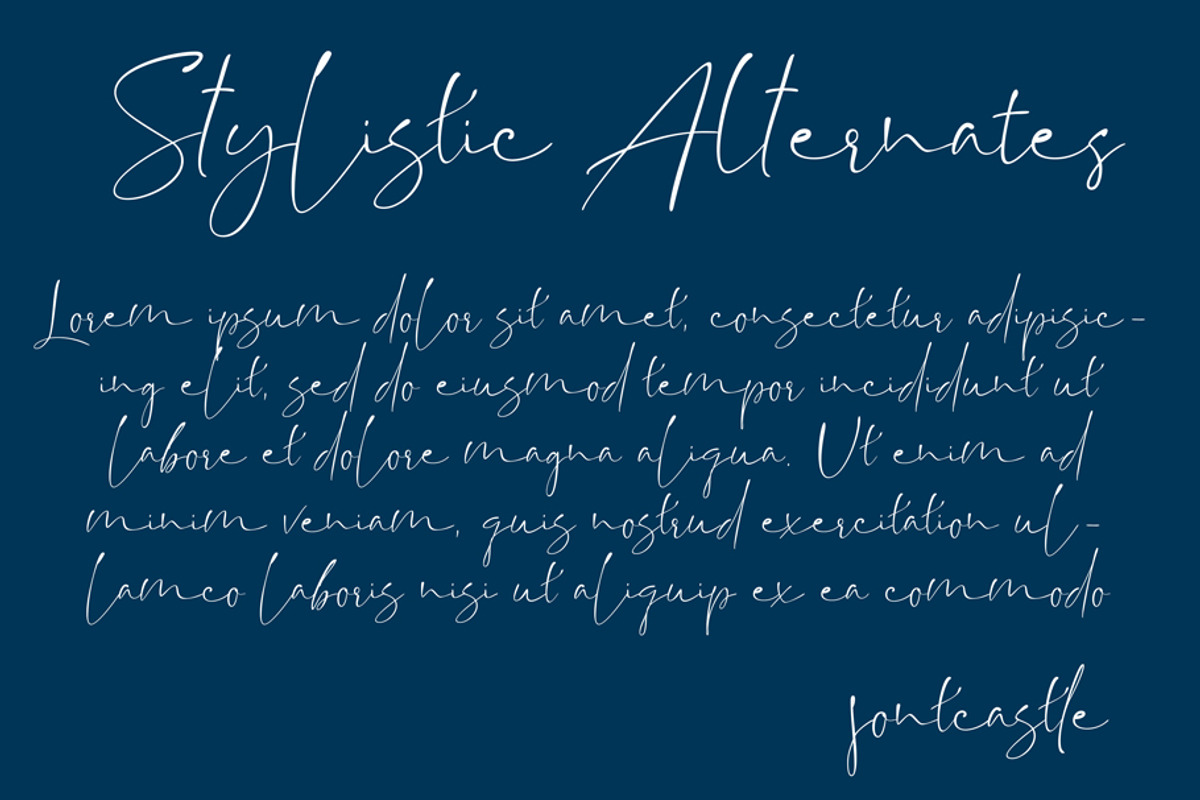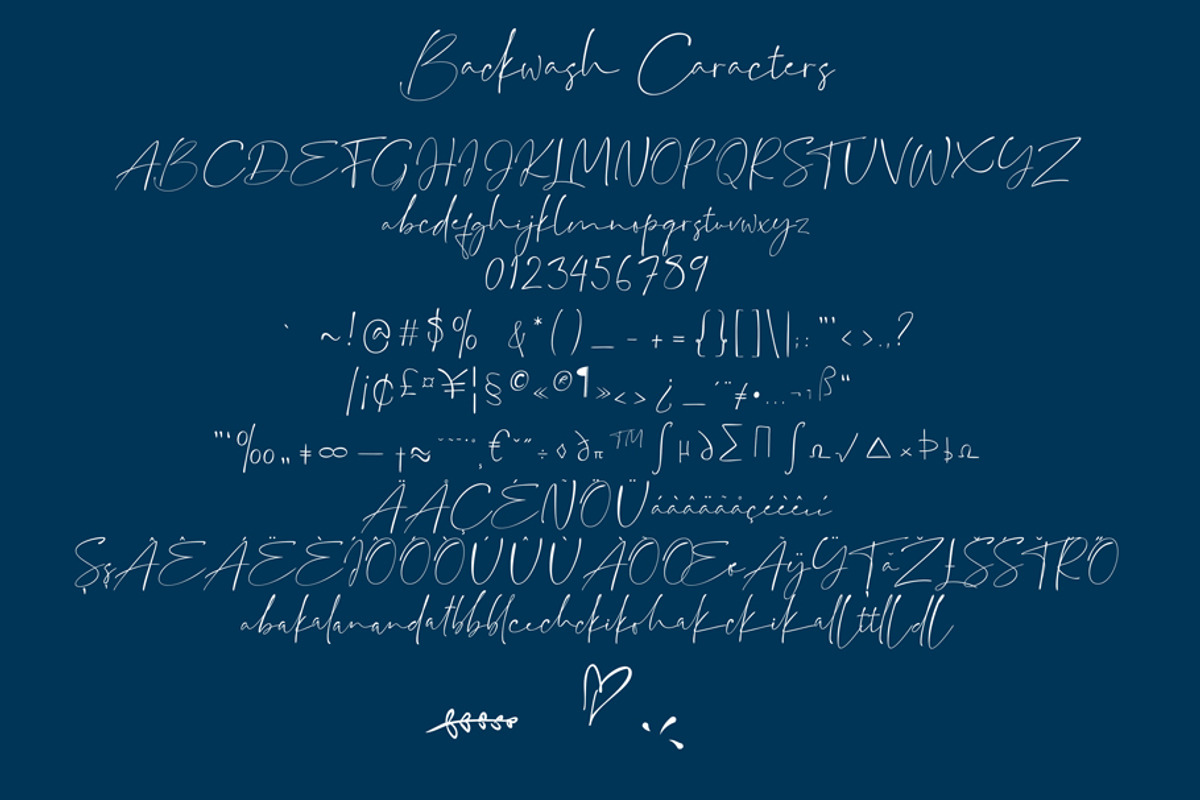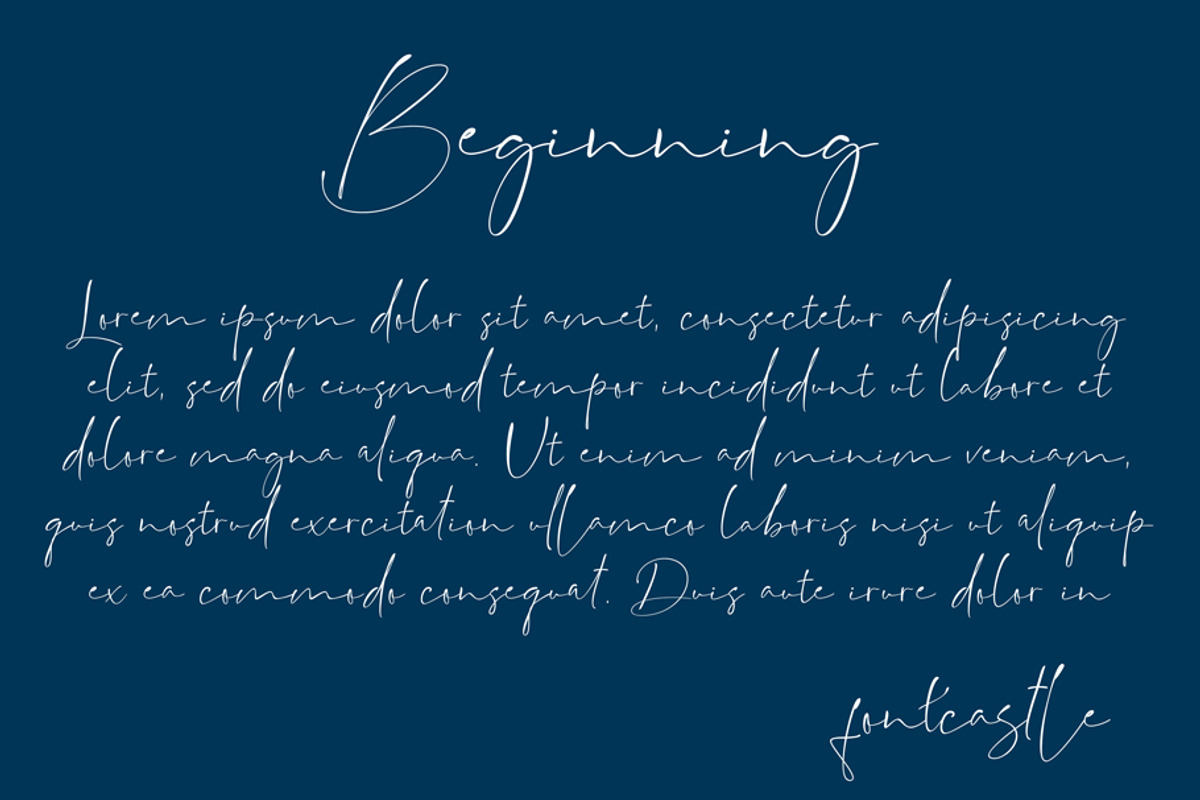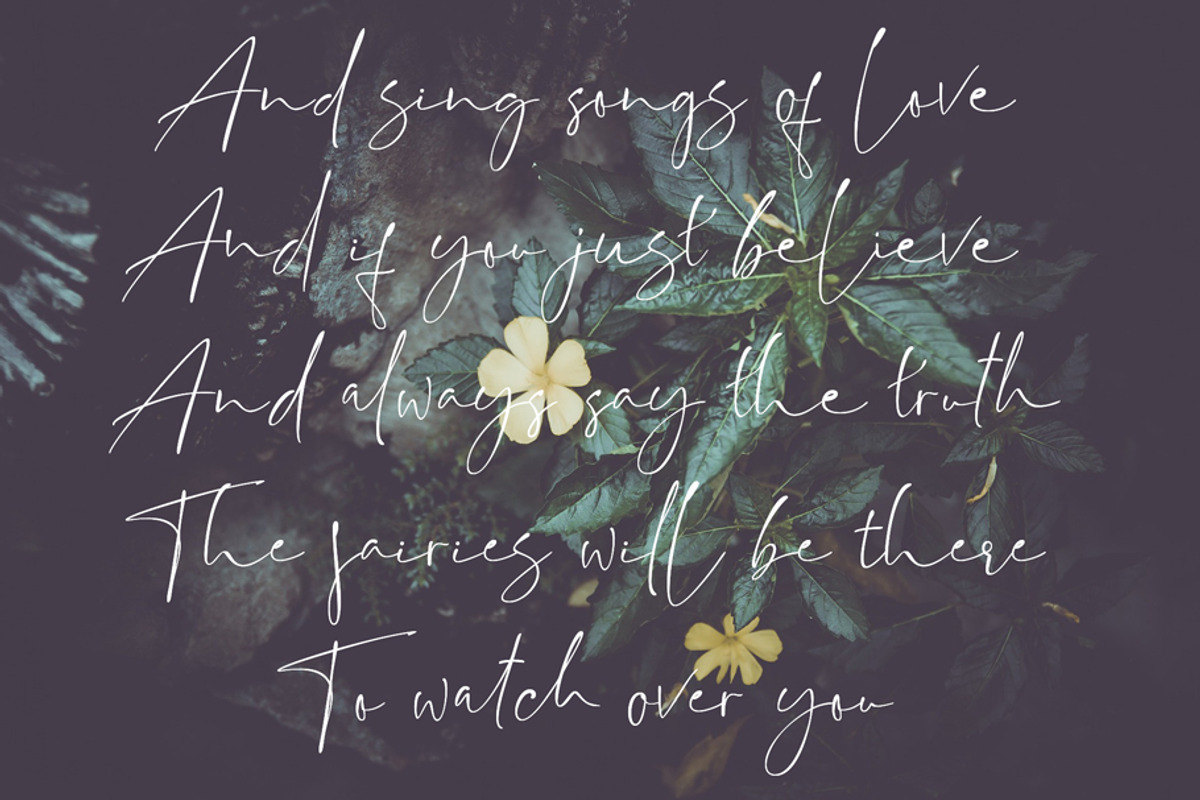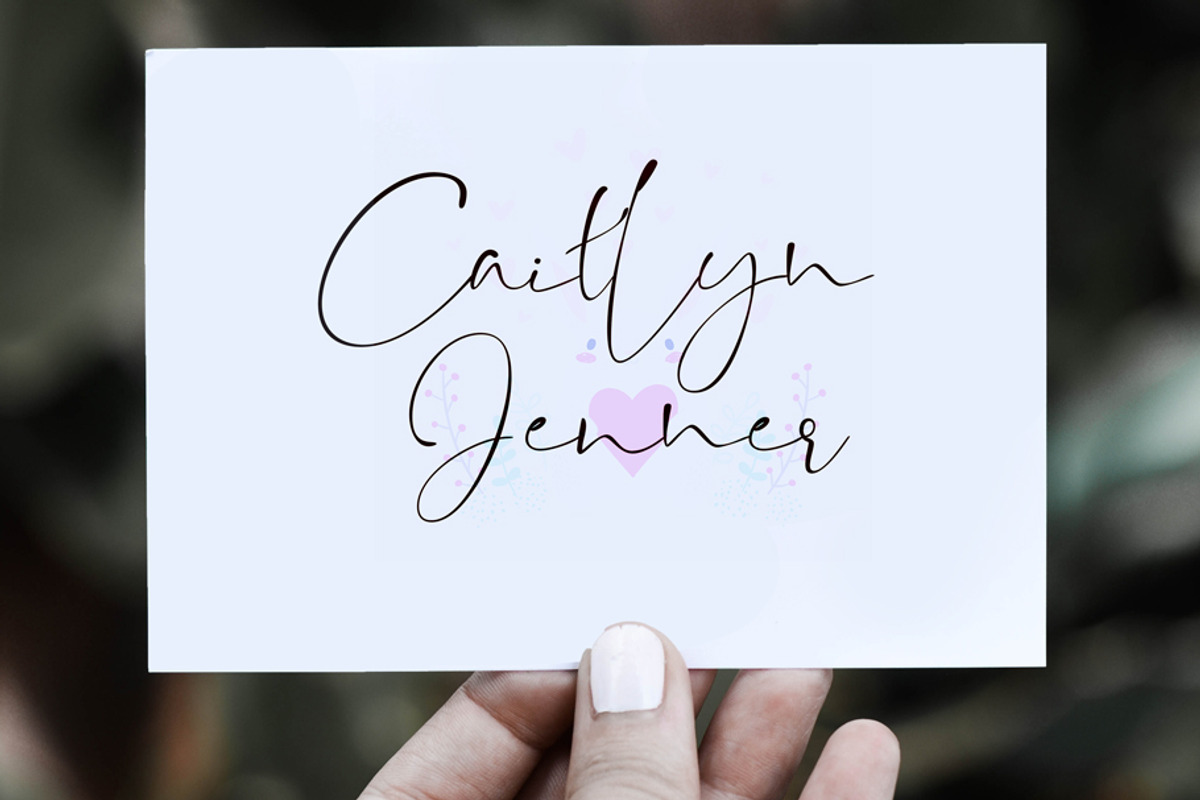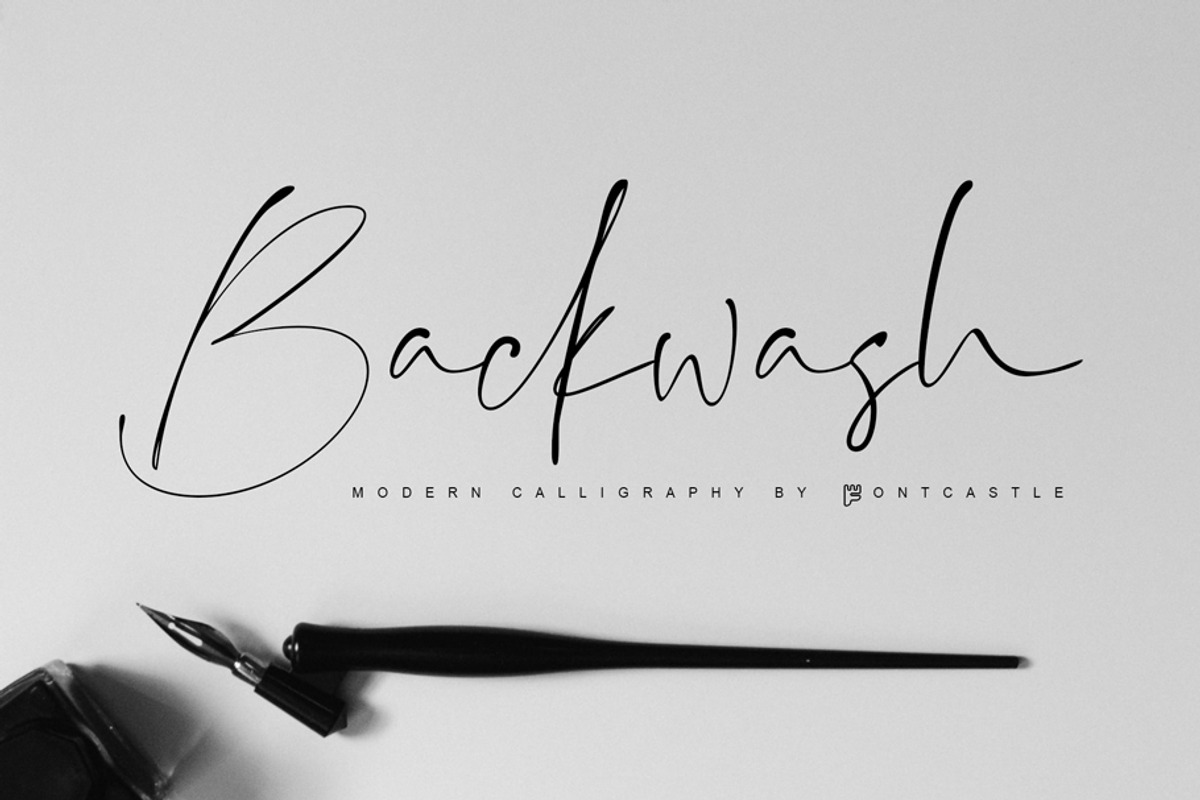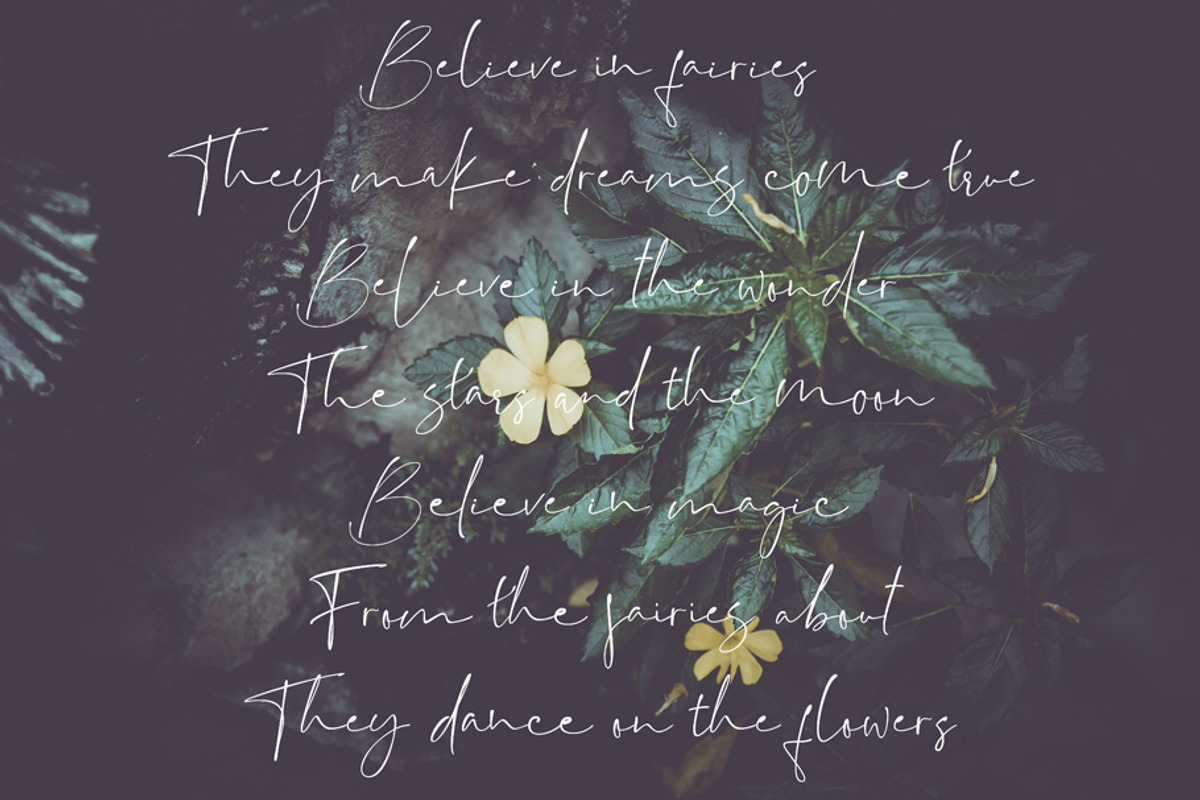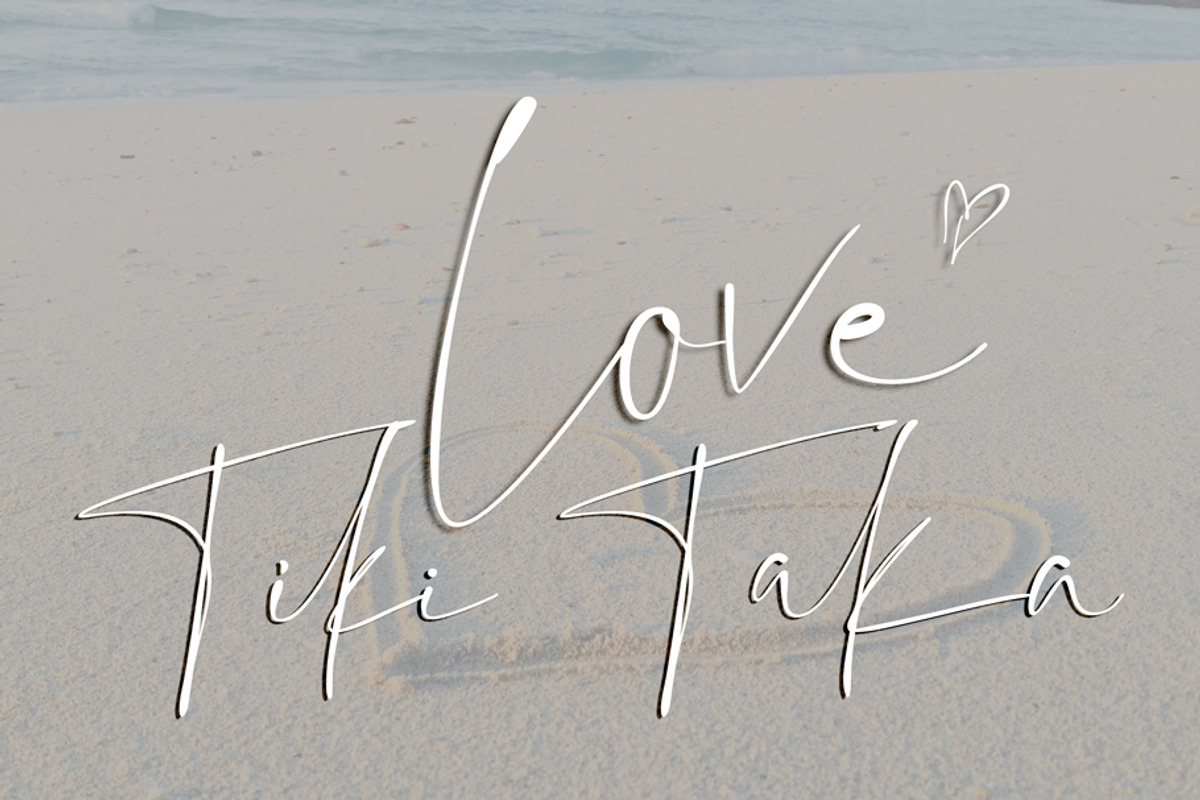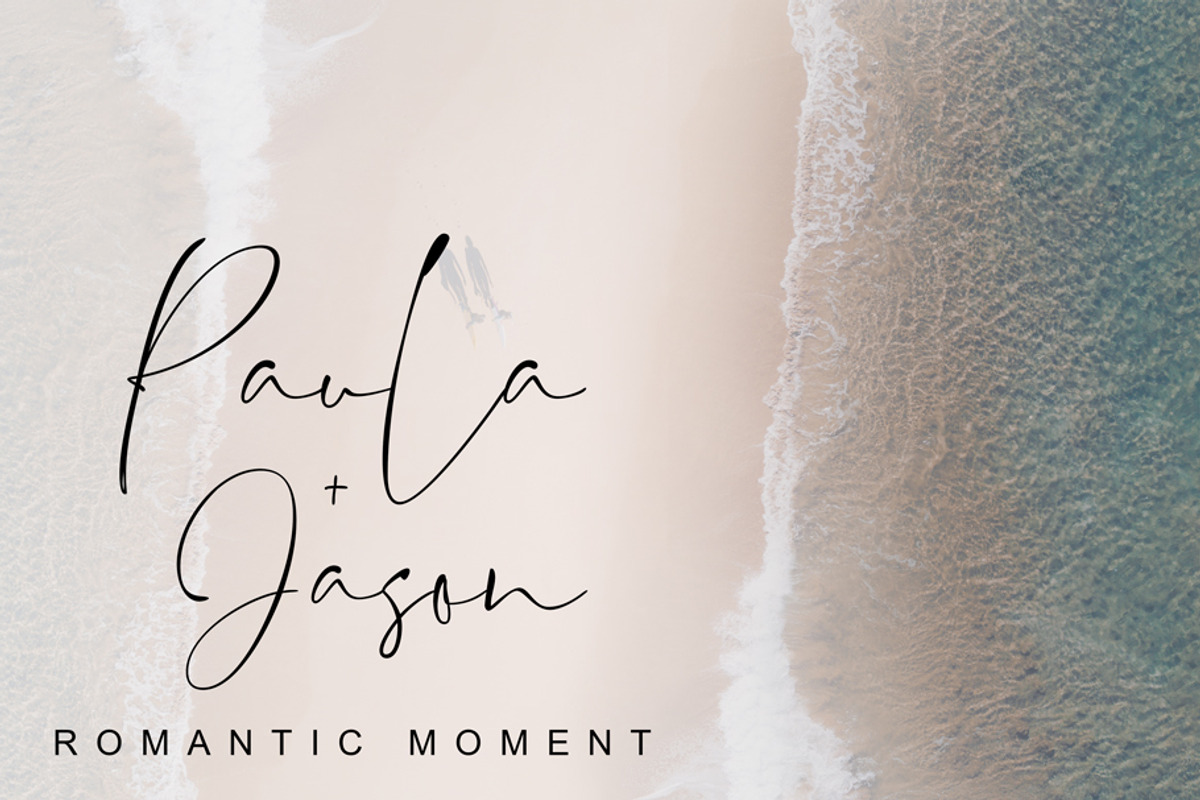
Backwash - Casual Script Font
Backwash is a thin and stylish handwritten font. Use it to make your ideas even more realistic and create spectacular designs! This font is PUA encoded which means you can access all of the glyphs and swashes with ease!
INCLUDED:
- Stylistic Set
- Localized Forms
- Ordinals
- Fractions
- Superscript
- Ornaments